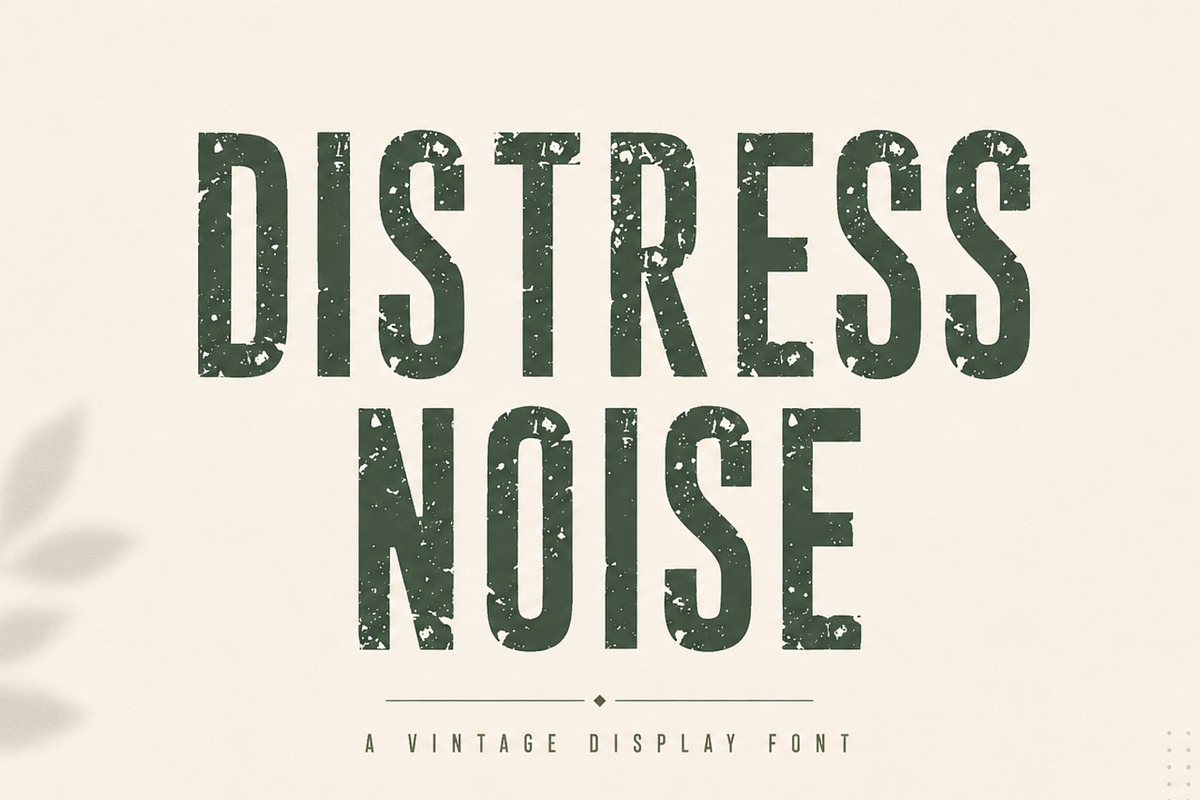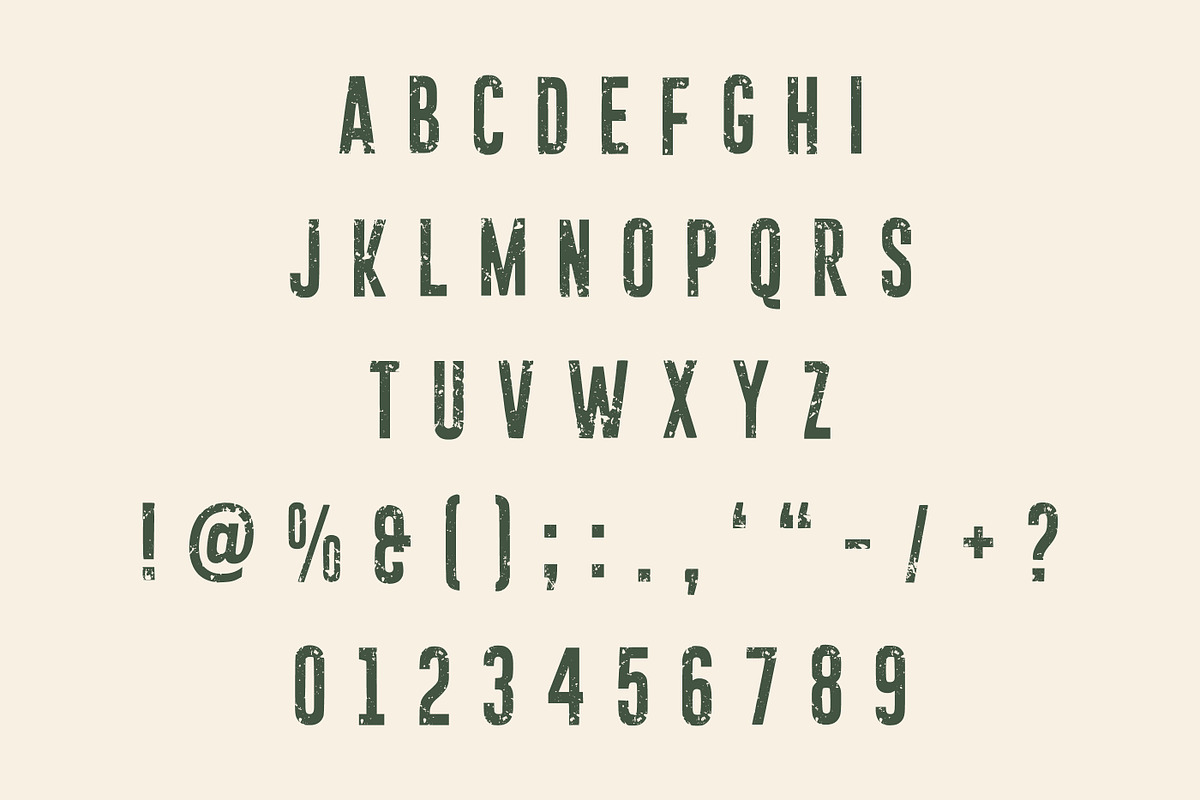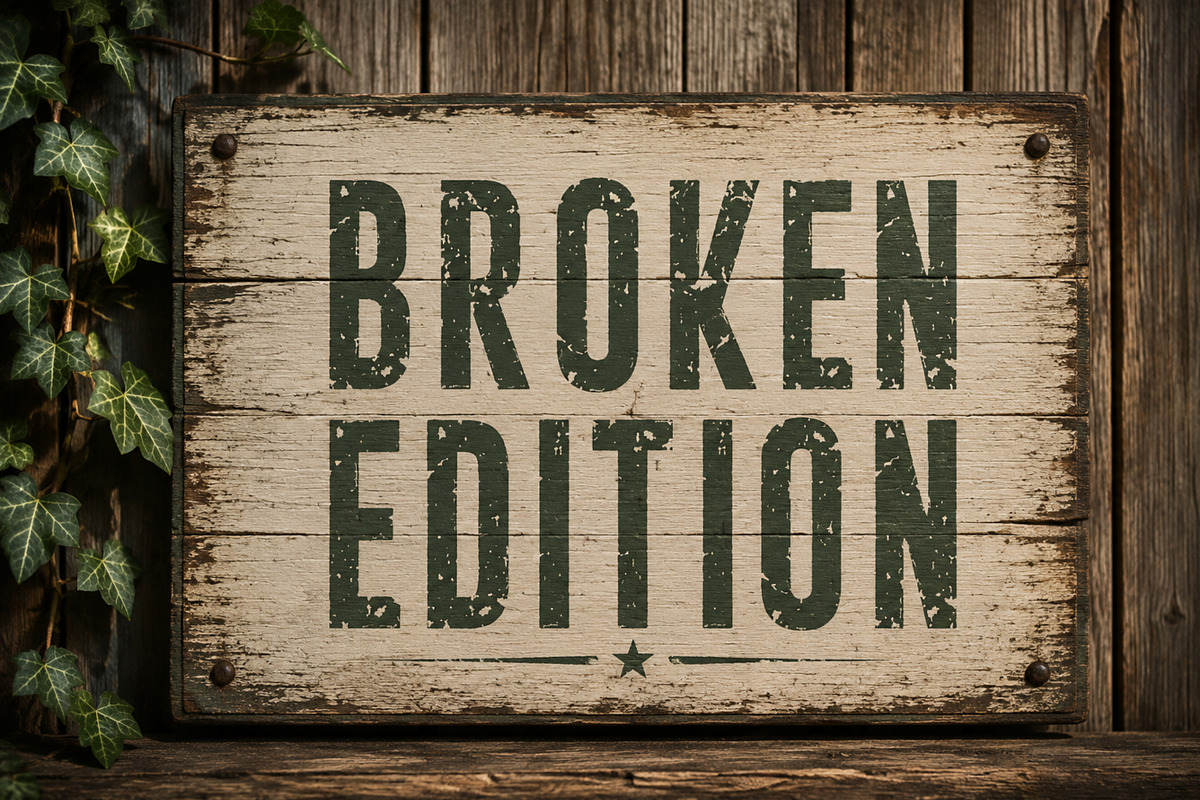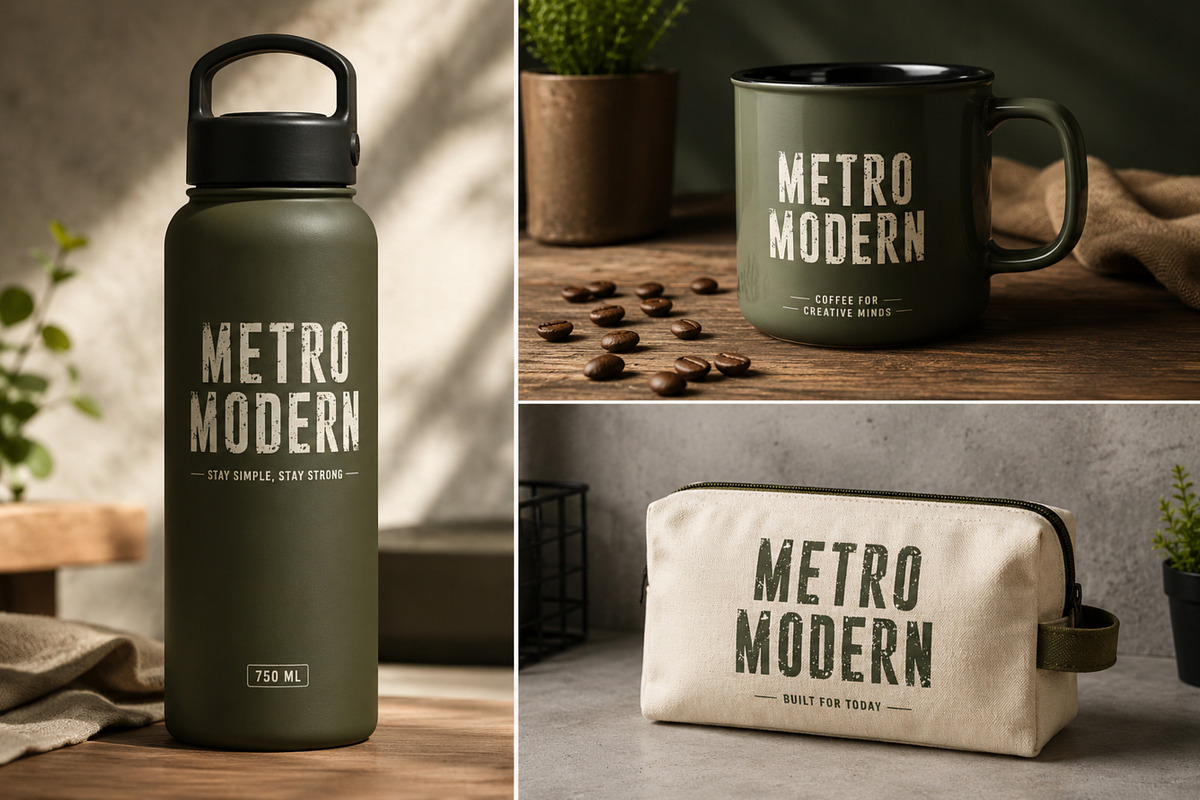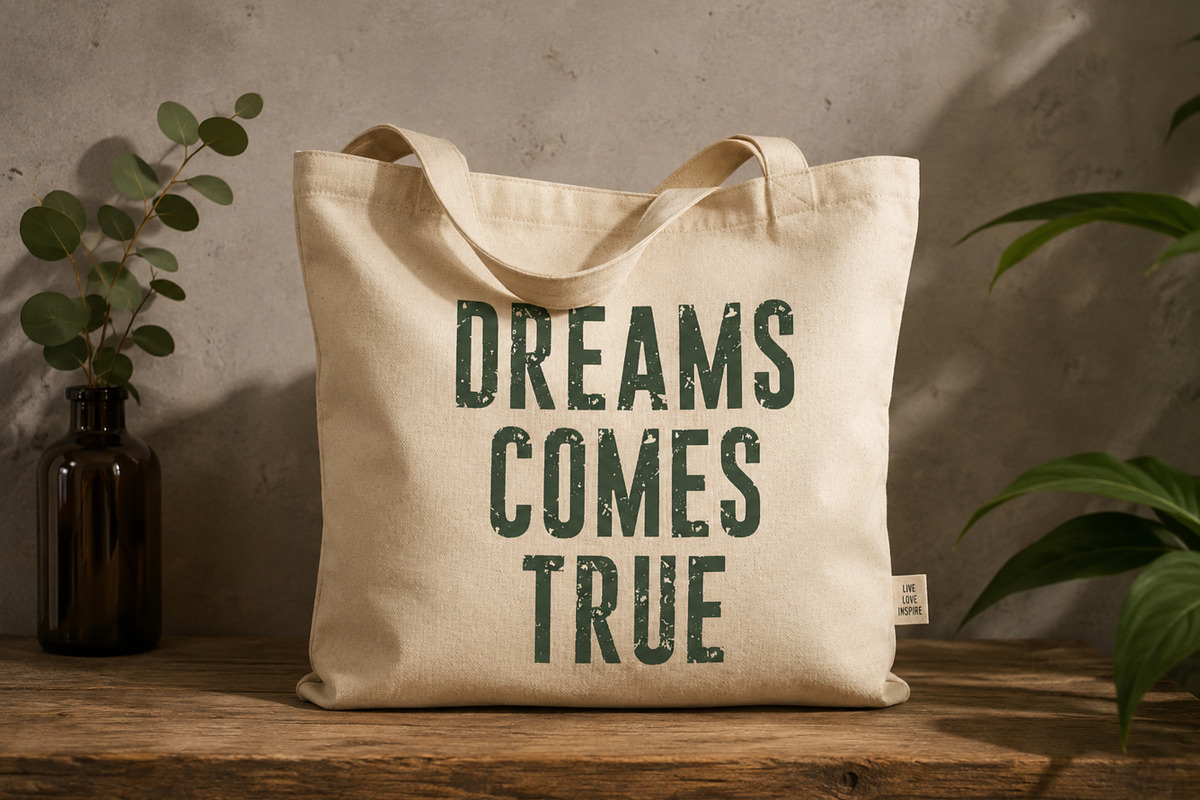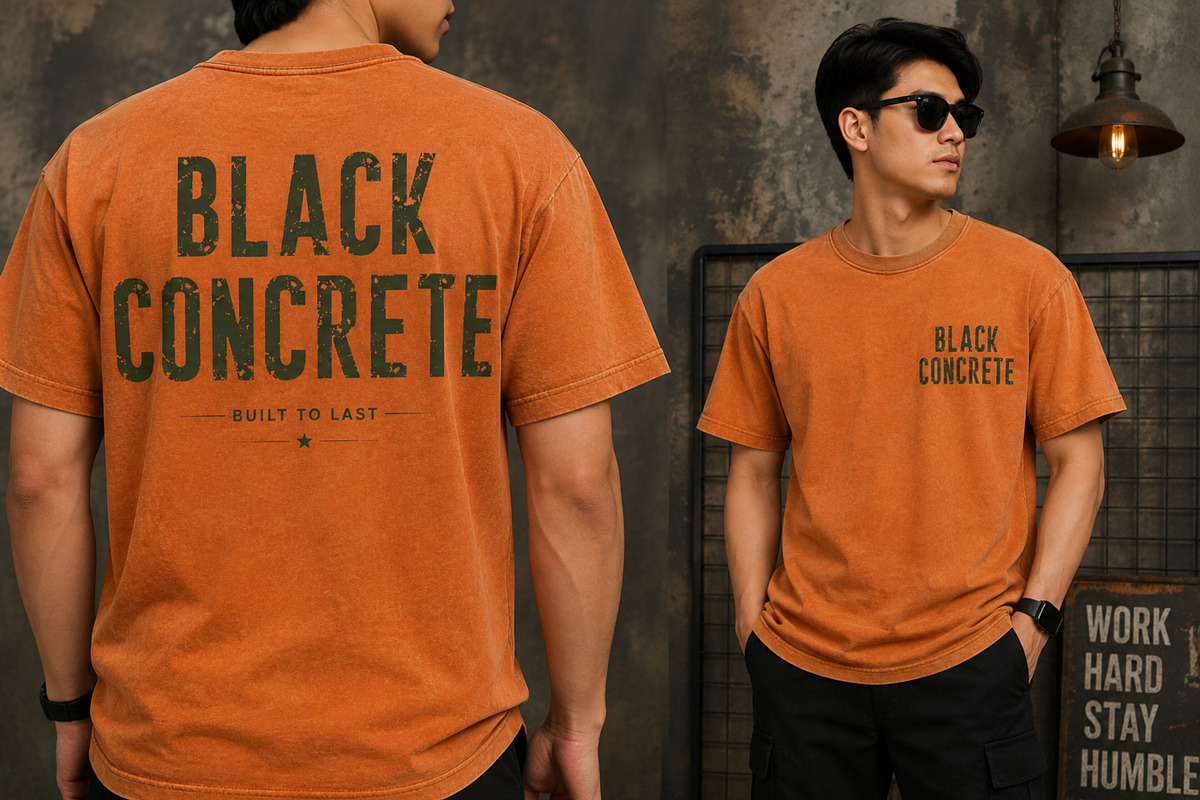
Distress Noise – Vintage Font
Distress Noise is a bold and condensed vintage display font with an authentic distressed and weathered texture. Designed for creators who want to add a rugged, retro, industrial feel to their typography projects.
Its strong letterforms and worn texture make it ideal for vintage branding, streetwear designs, T-shirt graphics, posters, logos, labels, packaging, badges, stickers, album artwork, and merchandise.
Whether you're creating an old-school apparel collection, a rugged brand identity, or a vintage-inspired poster, Distress Noise delivers a bold and authentic distressed look.
Bold condensed display style
Authentic distressed texture
Vintage and retro aesthetic
Strong, rugged letterforms
Great for large display typography
Suitable for branding and merchandise
Ideal for print and digital projects